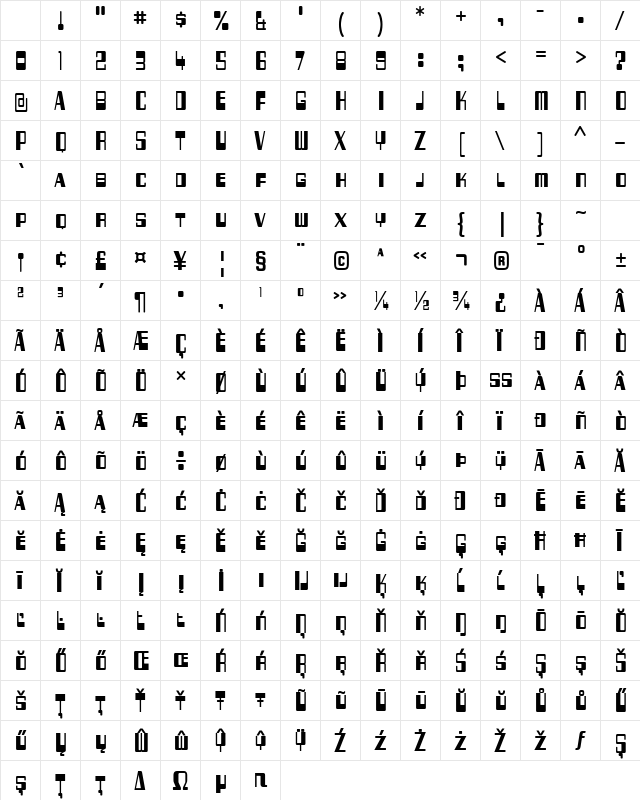
Complete 256 Bytes Regular glyph index. Displaying only characters natively supported by 256 Bytes Regular font.
256 Bytes is a composed and adaptable typeface that performs quietly and consistently across a wide range of design contexts.